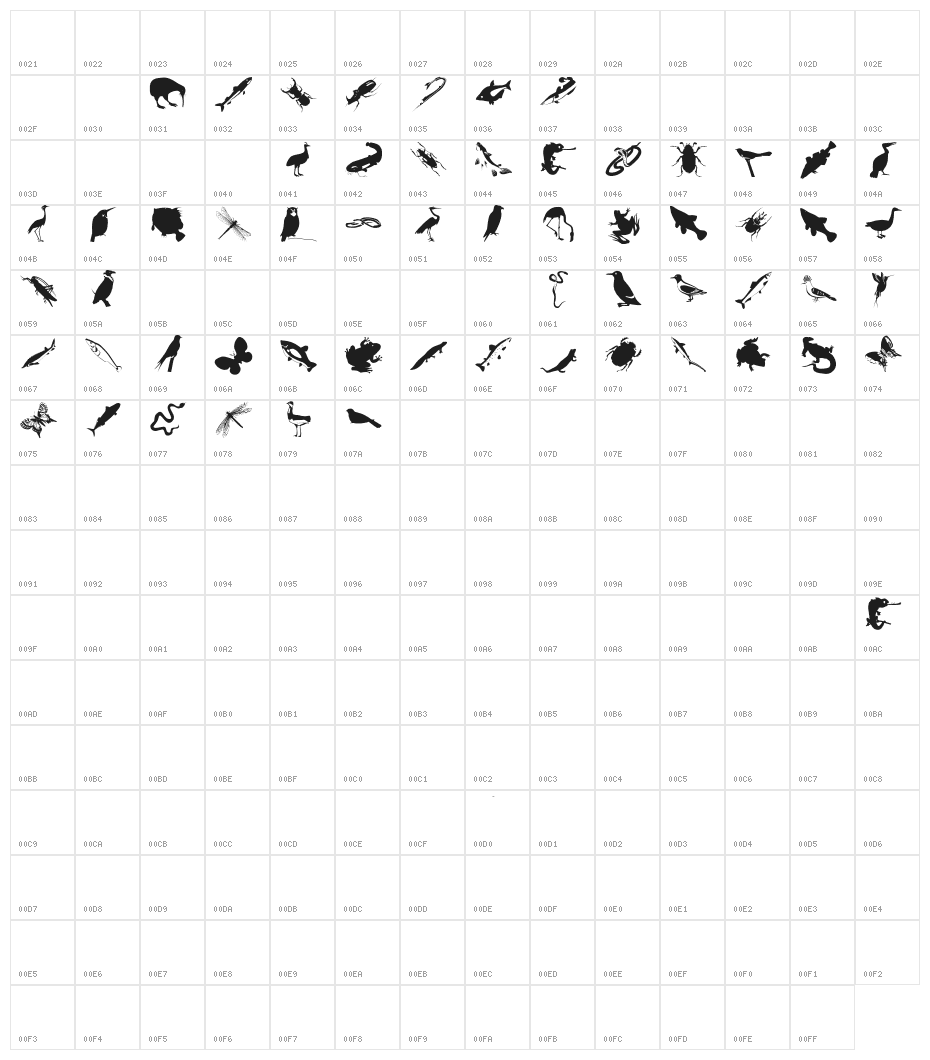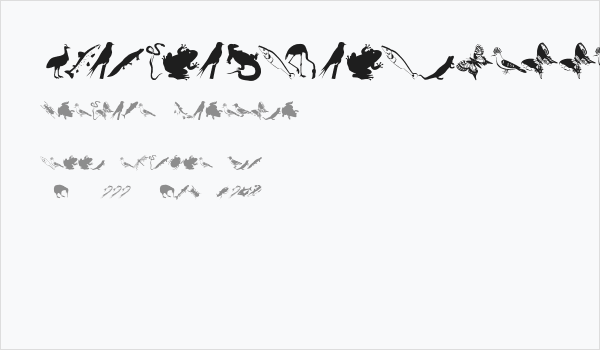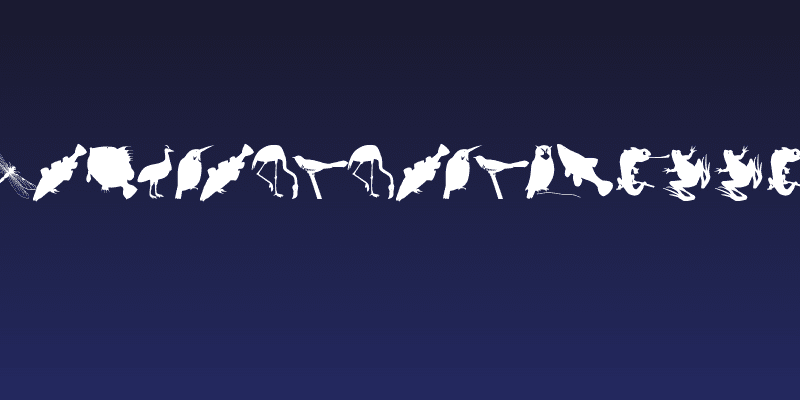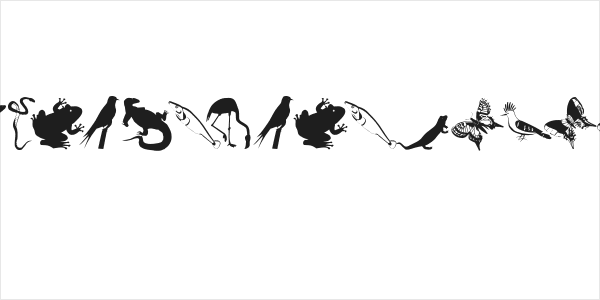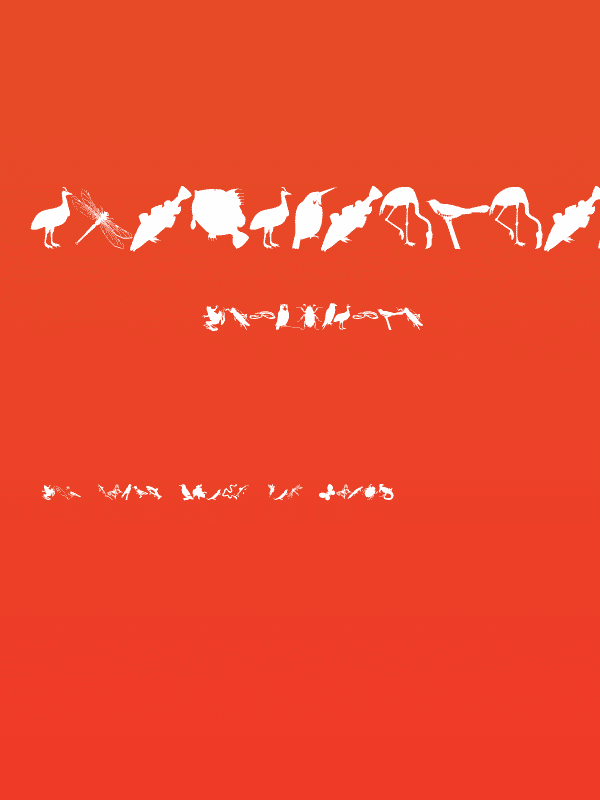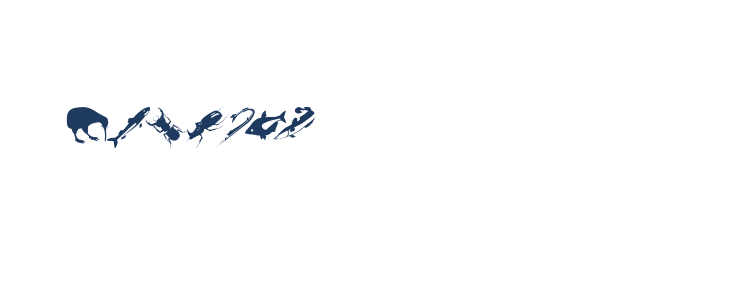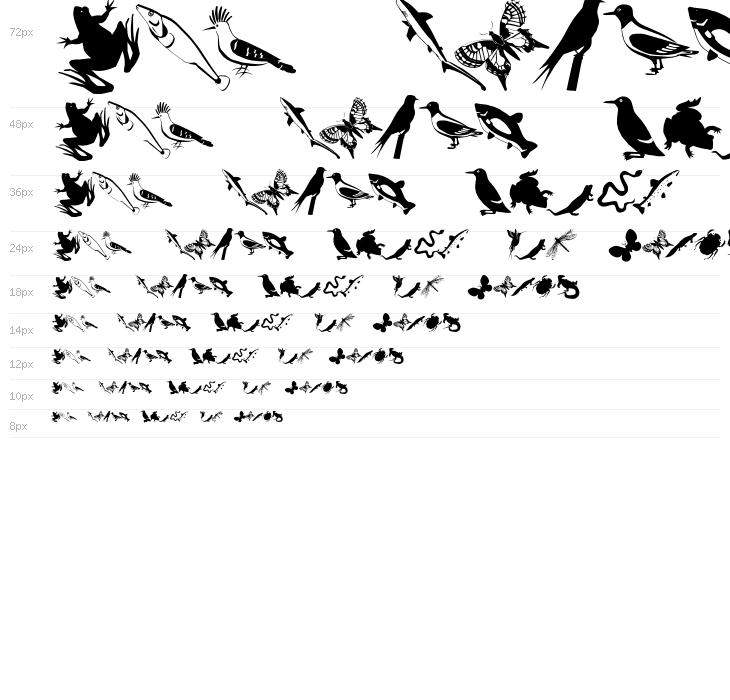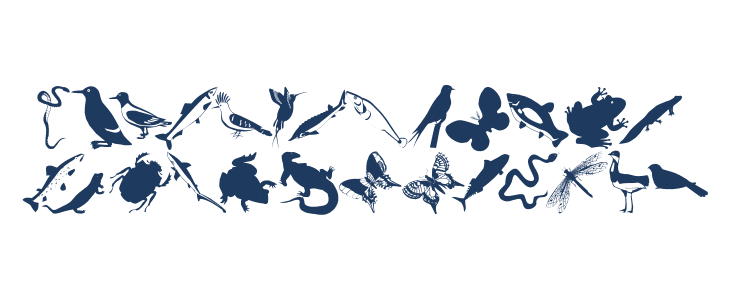
AnimalishSilhouettes Font
AnimalishSilhouettes Description
A highly decorative font composed entirely of animal silhouettes, each character represented by a unique animal or insect shape. The glyphs are bold, filled black shapes with varying levels of detail, making each letterform distinct and illustrative rather than typographically traditional.
| Overall Style | Decorative, Playful, Illustrative |
| Use Case | Logos, Posters, Headlines, Themed graphics |
| Proposed Projects | Children’s books, educational materials, wildlife posters, creative branding, themed event invitations. |